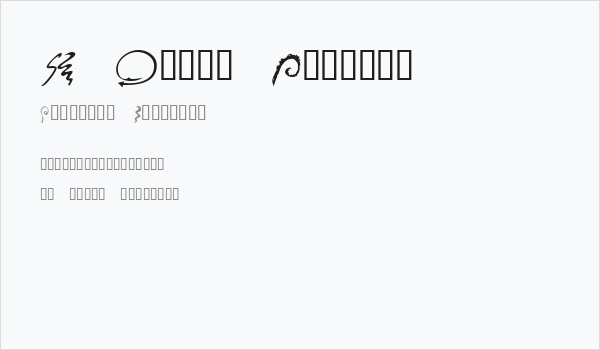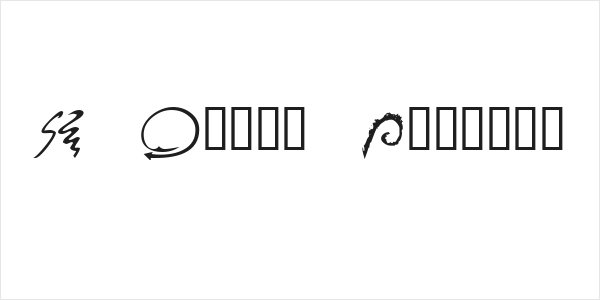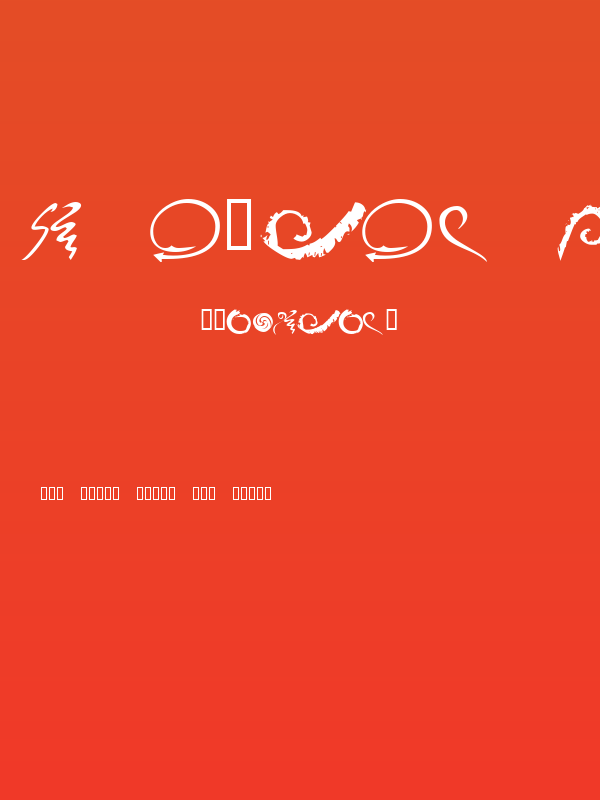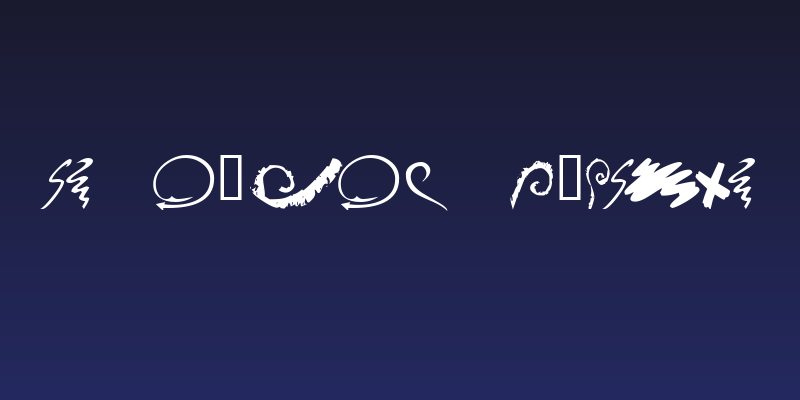
KR Swash Buckler Font
KR Swash Buckler Description
A highly decorative and expressive set of swashes, scribbles, and abstract brushstroke elements, featuring bold, energetic lines and dynamic curves. The glyphs are irregular, with a hand-drawn, artistic feel, and lack traditional letterforms.
Overall StyleDecorative, Artistic, Hand-drawn
Use CaseAccents, embellishments, non-textual design elements
Proposed ProjectsGraphic design accents, posters, invitations, scrapbooking, digital art, comic effects.